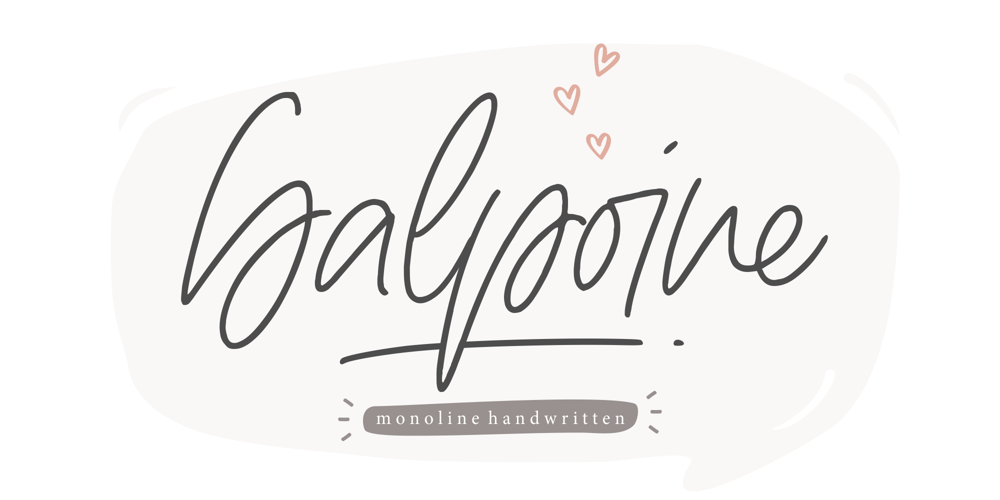
Balpoine Font Family was designed by Bagus Arya Kirana and published by Krntype Studio. Balpoine contains 1 styles and family package options. Introducing Balpoine!a wonderful Handwritten, monoline font display.made with a unique and high curve style that makes it look differentBalpoine is an eye-catching, and clean handwritten font.balpoine comes with an accent language and ligatures.This font is suitable for handwriting logos, Wedding invitation cards, T-shirts, merchandise, quotes, social media posts, advertising, and a lot more!